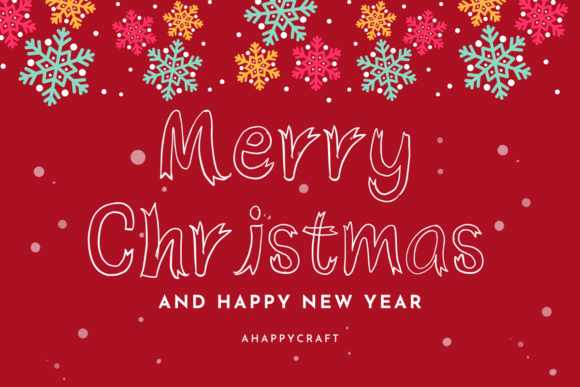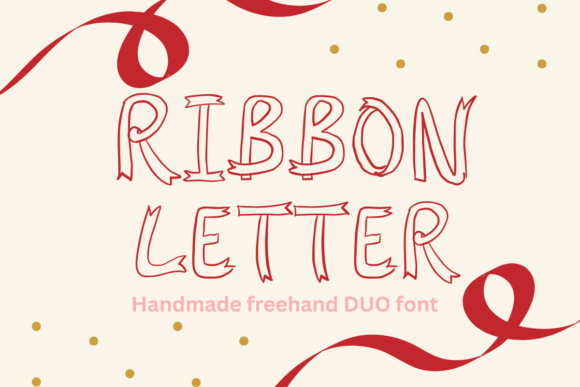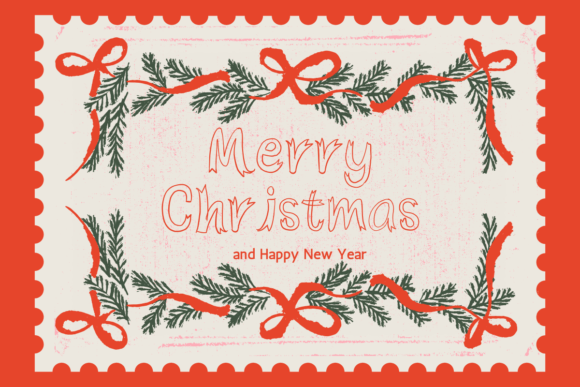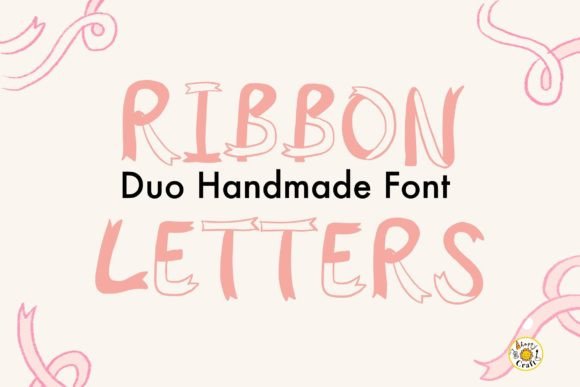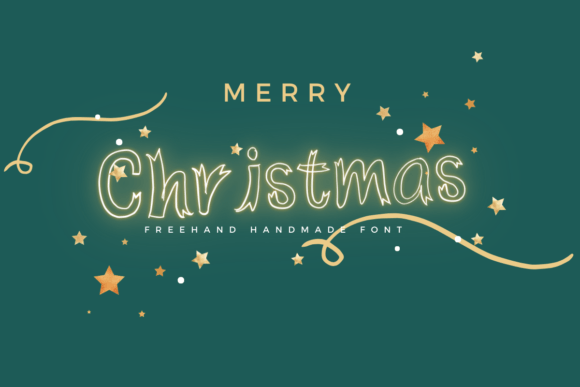
Introduction to Ribbon Letters Font
Remember that magical moment when you stumbled upon the perfect font for your creative project? The one that elevates your design from ordinary to extraordinary? For designers, that ‘aha’ moment is priceless. It’s the culmination of hours spent searching, experimenting, and refining. And for those who’ve discovered the Ribbon Letters Font, that moment is a reality.
This charming and decorative font is a game-changer for designers seeking high-quality, unique elements to add a touch of sophistication to their work. With its elegant ribbons, each letter is a masterpiece, making it an ideal choice for branding, invitations, and any project that demands a touch of style. Whether you’re working on a design resource or looking for a free download, the Ribbon Letters Font is sure to impress with its versatility and artistry.
Key Features of Ribbon Letters Font
- High-quality design resource suitable for creative projects, with intricate details and unique characteristics.
- Designed to be versatile, the Ribbon Letters Font is perfect for various design applications, including digital art, print materials, and more.
- Unique, hand-drawn style adds a touch of elegance and sophistication to any creative project, making it a standout design resource.
Honest Review: Ribbon Letters Font
As a designer, I’m always on the lookout for high-quality design resources to elevate my creative projects. Recently, I stumbled upon the Ribbon Letters Font, and I must say, it’s a gem.
What works well about this font is its whimsical and playful style, making it perfect for projects that need a touch of elegance and sophistication. The transparent background allows for seamless integration with any design, and the free download is a huge bonus.
- ✨ Whimsical and playful style
However, I did encounter some limitations. The font is not as versatile as I’d like, and it may not be suitable for projects that require a more formal tone. Additionally, the font files can be a bit large, which may be a concern for designers working with limited storage space.
Overall, I’m impressed with the Ribbon Letters Font. While it may have some limitations, its unique style and high-quality design make it a valuable addition to any designer’s toolkit. If you’re looking for a creative way to add some flair to your projects, I’d definitely recommend giving this font a try.
Ribbon Letters Font
Tips for Getting the Most Out of Ribbon Letters Font
Experiment with different font sizes, colors, and orientations to achieve the desired effect. Use the font in combination with other design elements to create a cohesive and visually appealing design. Consider using a transparent background to make your design stand out.
The Ribbon Letters Font is ideal for creating invitations, event banners, and other decorative elements for your creative project. It’s also great for adding a touch of elegance to your digital designs, such as business cards, brochures, and social media graphics.